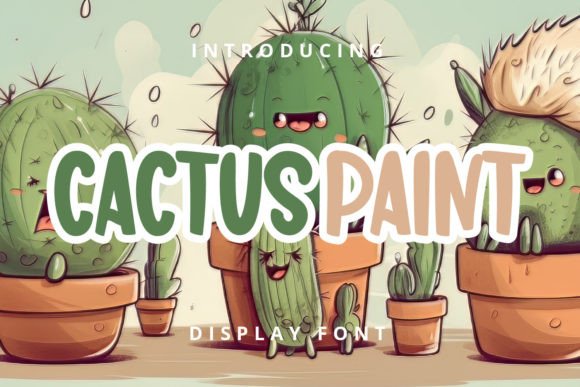
The Joy of Cactus Paint Font: A Designer’s New Best Friend
I still remember the day I stumbled upon Cactus Paint font while working on a children’s activity book project. I had been searching for the perfect font to bring the illustrations to life, but everything I found was either too boring or too complicated. That’s when I discovered Cactus Paint, and it was love at first sight! ✨
This fun, jolly, and incredibly charming display font embodies playfulness and authenticity, making it the perfect choice for any children’s activity or school project. In this article, I’ll share my experience with Cactus Paint, its features, and how to make the most of it in your designs.
An Honest Review of Cactus Paint Font
What I Love About Cactus Paint Font
• ✨ Unique and playful design that’s perfect for kids’ projects
• ✅ Easy to read and understand, even for young children
• 🎉 Supports OpenType features, glyphs, and stylistic alternates for added creativity
• 👍 Highly versatile and can be used for various design projects, from posters to digital graphics
While Cactus Paint font is amazing, it’s not perfect. Here are a few things to keep in mind:
• 🤔 Limited character set, which might not be suitable for complex or lengthy text
• ⚠️ May not work well with smaller font sizes or in situations where a more formal tone is required
The Backstory of Cactus Paint Font
Cactus Paint font was designed with the intention of creating a fun and playful font that would bring joy to children’s designs. The designer aimed to capture the carefree spirit of childhood and put it into a font that’s both easy to read and visually appealing.
Q: What is Cactus Paint font best used for?
A: Cactus Paint font is perfect for kids’ projects, children’s activity books, school materials, and any design that requires a playful and fun touch.